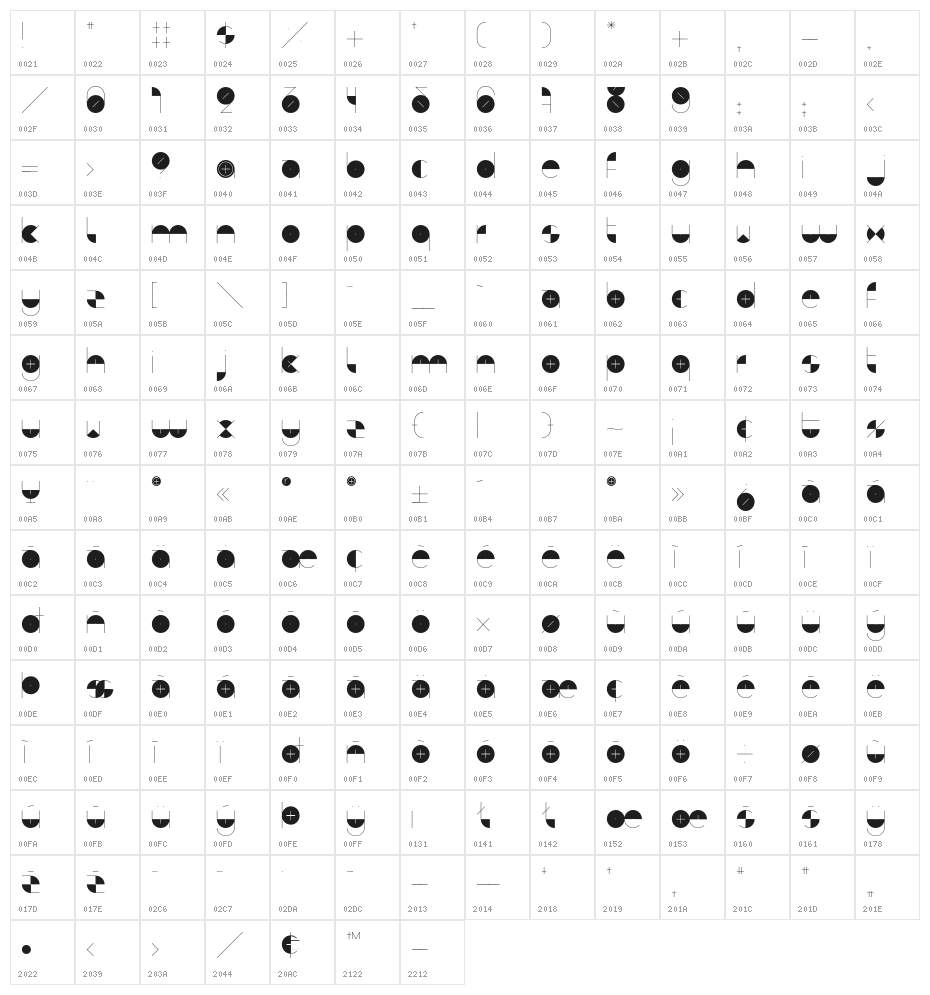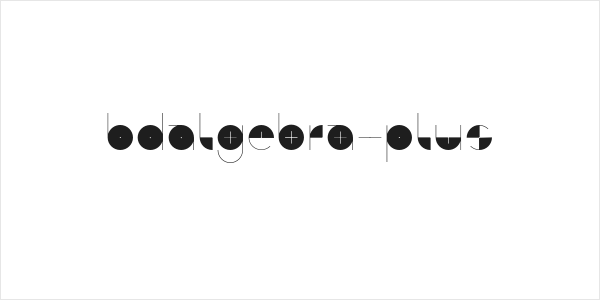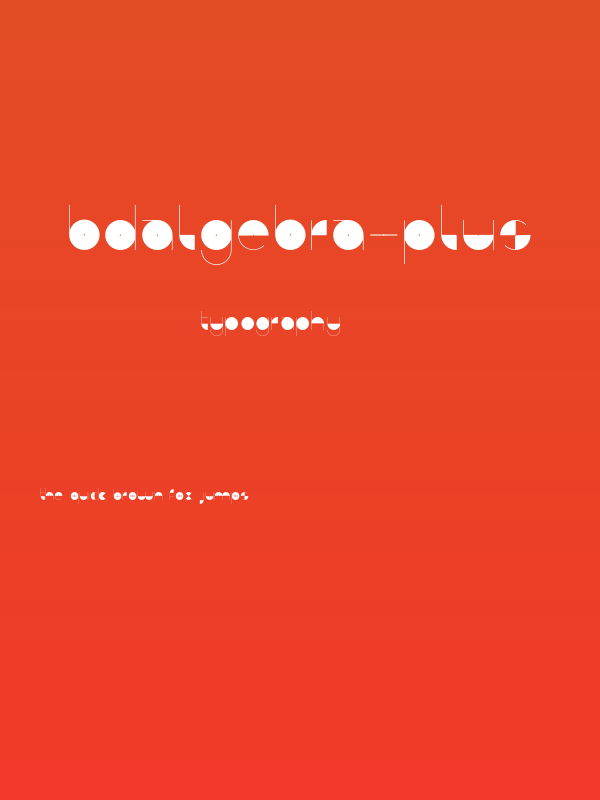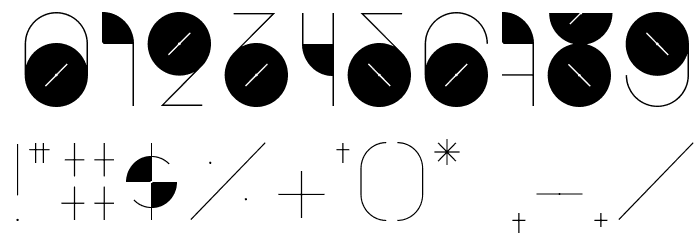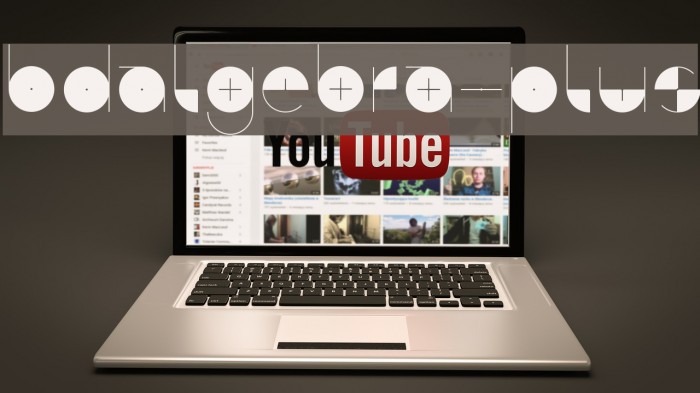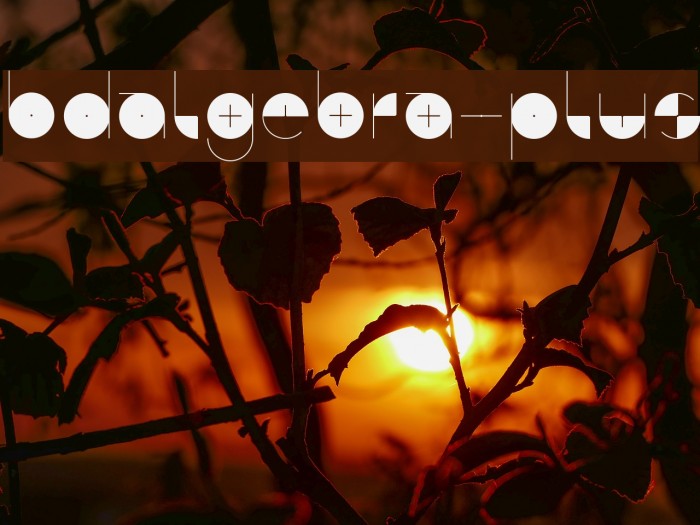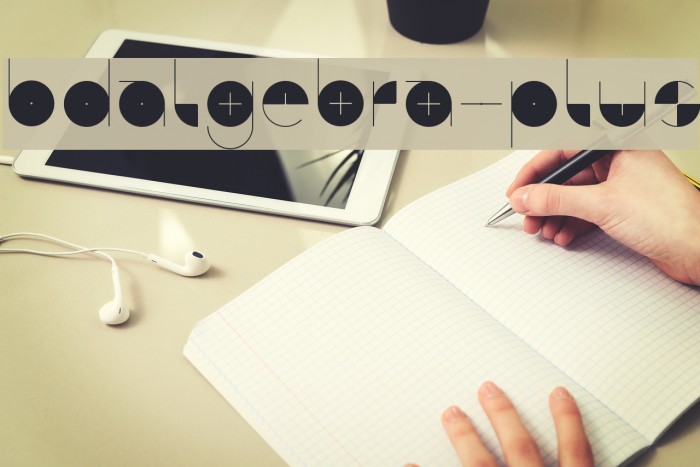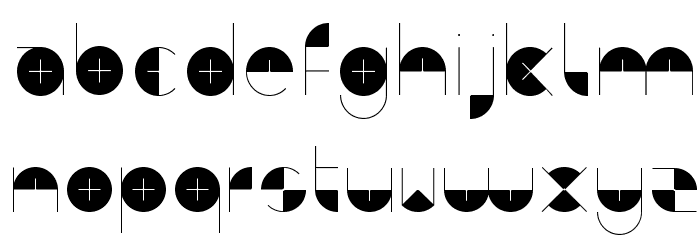
BDAlgebra-Plus Font
BDAlgebra-Plus Description
This font features a unique geometric design with a modern and futuristic aesthetic. The characters are constructed using bold, circular shapes combined with thin, straight lines, creating a striking contrast. The uppercase and lowercase letters maintain a consistent style, with circular elements often intersecting with linear components. Numbers and special characters follow the same geometric theme, enhancing the font's cohesive look. The overall design is minimalistic yet bold, making it suitable for projects that require a contemporary and innovative touch.